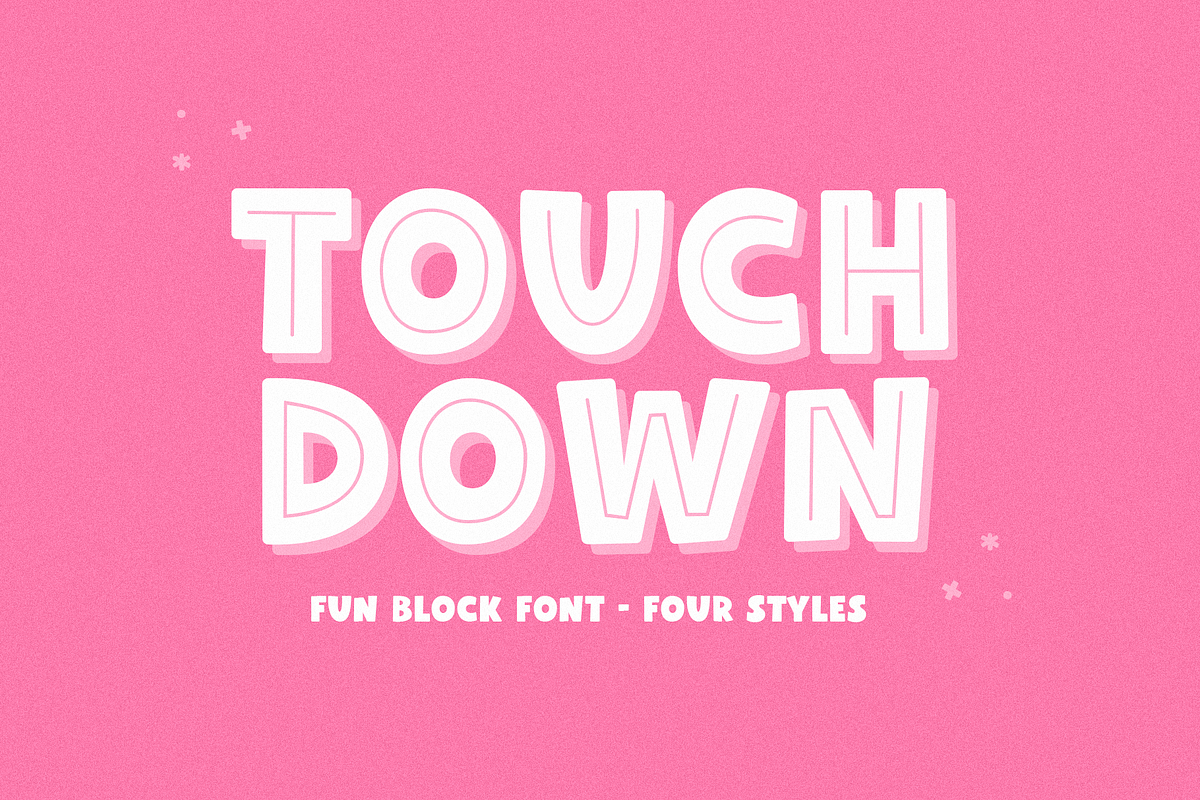
Touchdown | Cute Inline Font Free Download
Touchdown Cute Inline Font Free Download
Touchdown Cute Inline Font Free Download is a cheerful and charming typeface featuring a playful inline style that adds instant personality to your designs. With its bubbly shapes and fun detailing, Touchdown is perfect for children’s projects, birthday invitations, product packaging, logos, and social media posts that need a dose of cuteness and creativity.
Whether you're designing for a toy brand or creating joyful event graphics, Touchdown adds an approachable and animated vibe to your visuals. It's the perfect font for designers who want their work to feel fun, lighthearted, and full of energy.